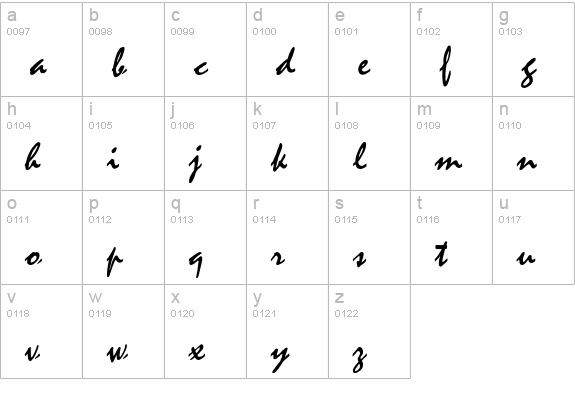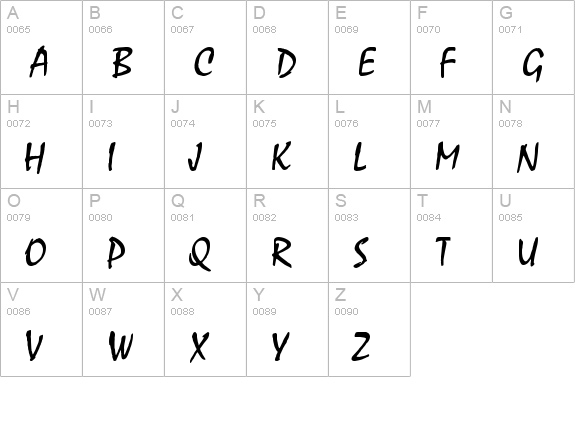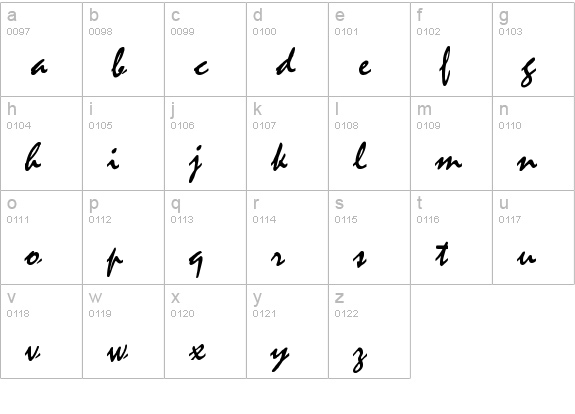
Mystic Normal Font Details
Mystic Normal is the standard, neutral variant in the Mystic typeface family \xE2\x80\x94 well suited to general body text, paragraphs, and standard typographic work.
Mystic Normal font is the epitome of elegance and sophistication, with its sleek lines and stylish curves that exude a sense of mystery and allure. This font is perfect for adding a touch of magic to your designs, whether for branding, invitations, or social media graphics. Its versatility allows it to be used in a variety of projects, making it a must-have for any designer looking to elevate their work to the next level. Best of all, Mystic Normal font is available for free download at FontsMarket.com, where you can access this captivating typeface with just a few clicks. Don't miss out on the opportunity to enhance your design projects with this enchanting font that will leave a lasting impression on your audience. Download Mystic Normal today and unlock a world of creative possibilities!